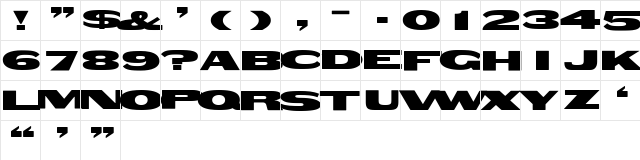
WoodtypeGothicExtended Medium
Design Context for WoodtypeGothicExtended Typeface
WoodtypeGothicExtended taps into classic Western woodtype traditions — bold, characterful, and impossible to ignore.
Perfect for barbecue restaurants, country music branding, vintage poster design, and rustic packaging.
Font Pairing: Combine WoodtypeGothicExtended with a simple slab or neutral sans — period-accurate companions reinforce the vintage feel without competing for attention.
Pro Tip: Pair WoodtypeGothicExtended with aged textures or distressed backgrounds to amplify its vintage personality.